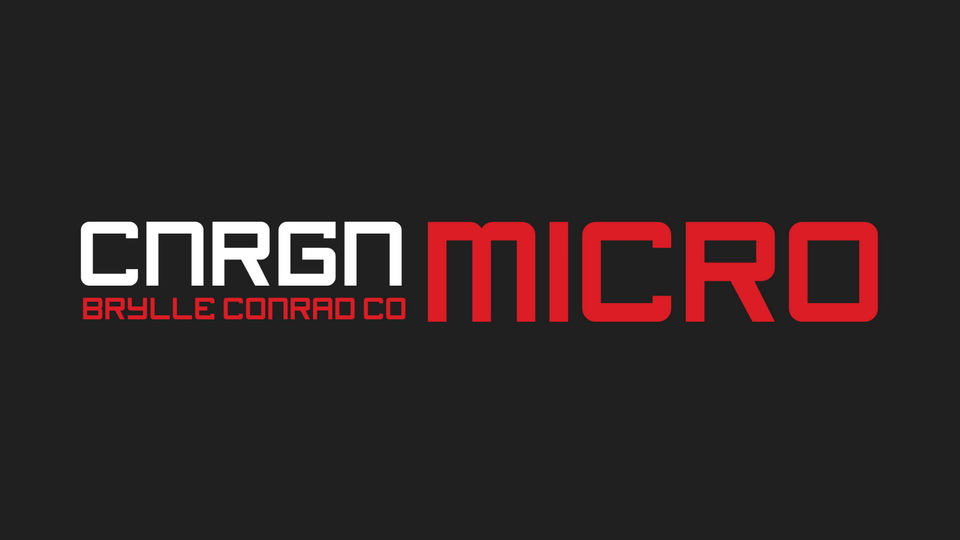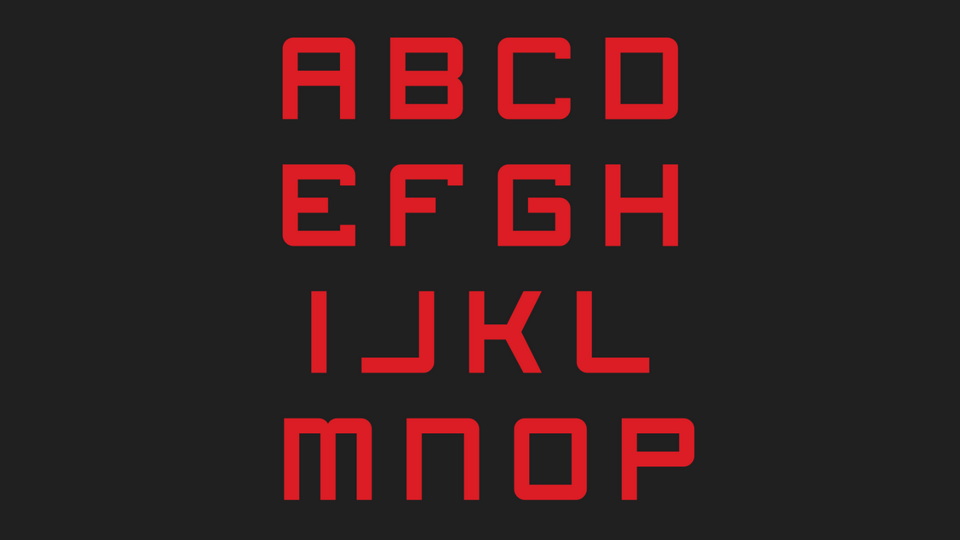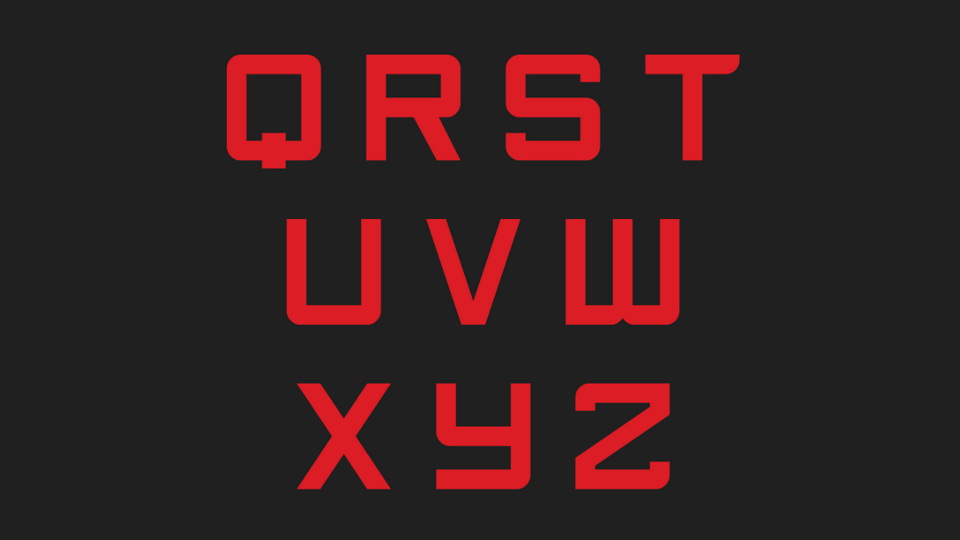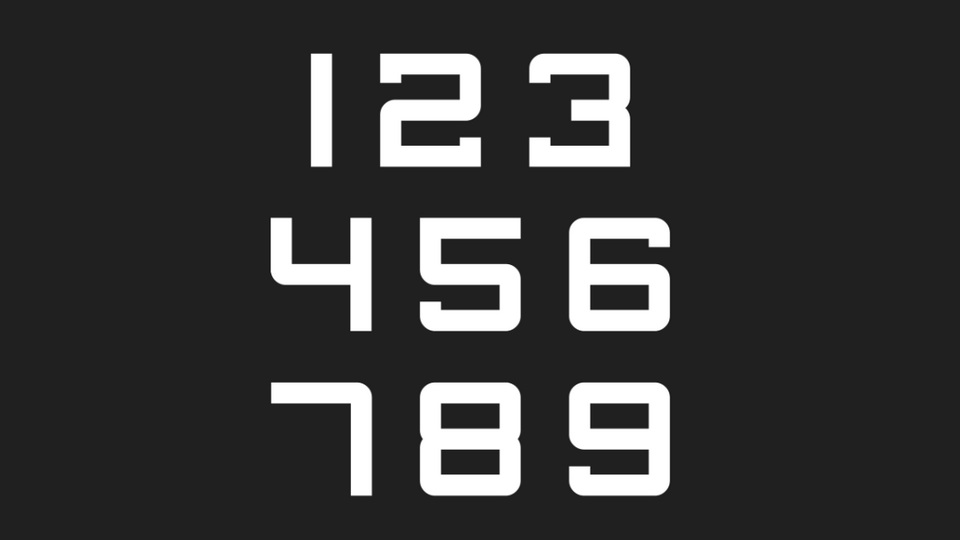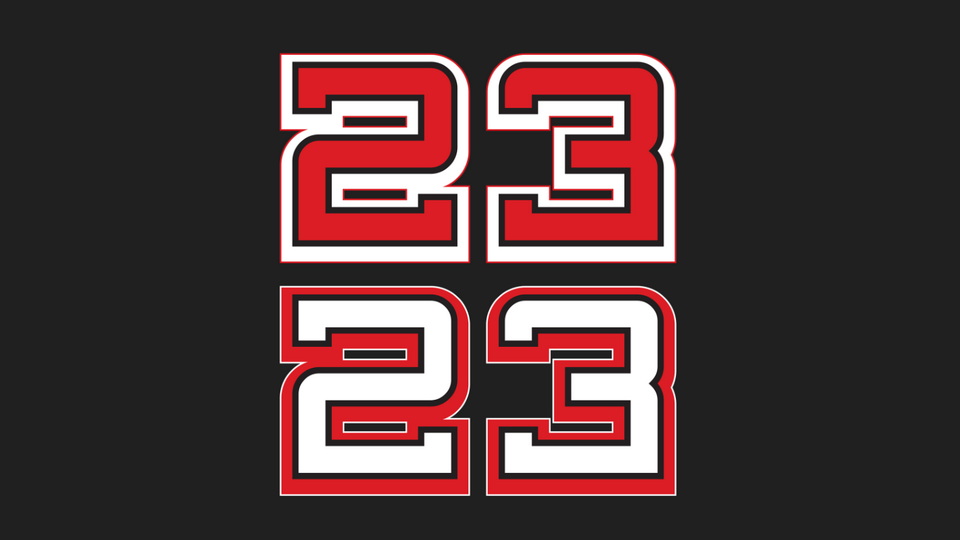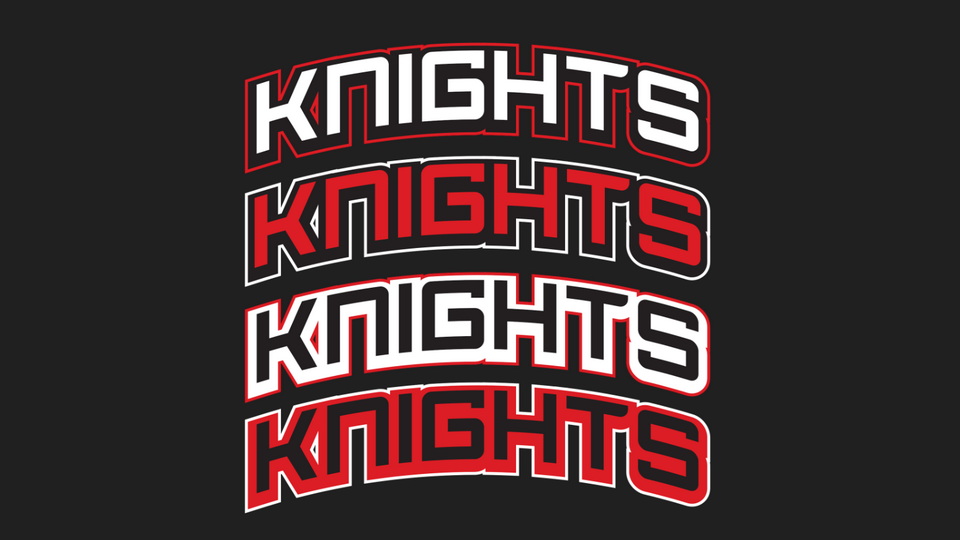
CNRGN Micro is a bold, blocky display typeface with a geometric structure. It’s made specially for subtext or secondary text and is perfect for advertising, packaging, posters, software and gaming as well as sports.